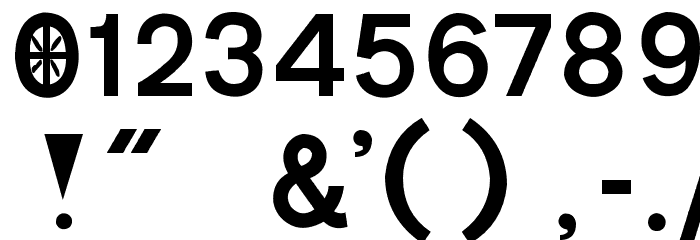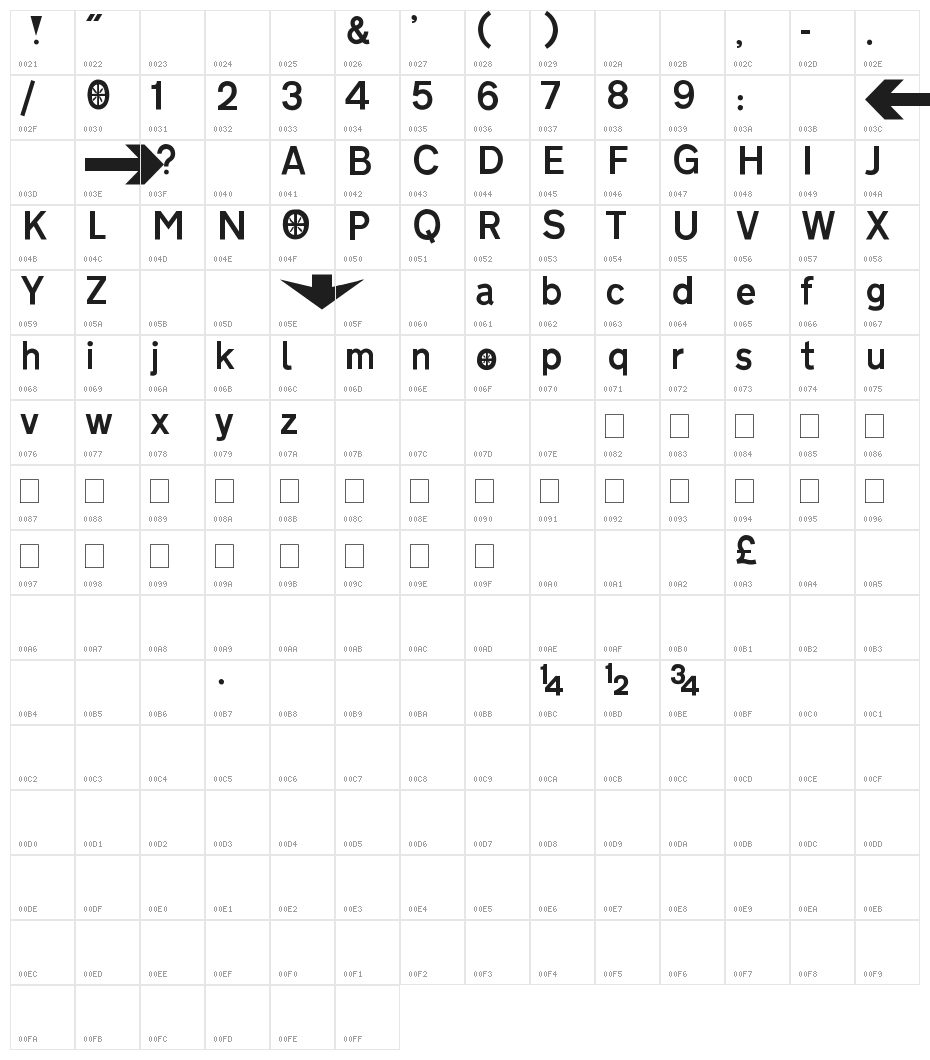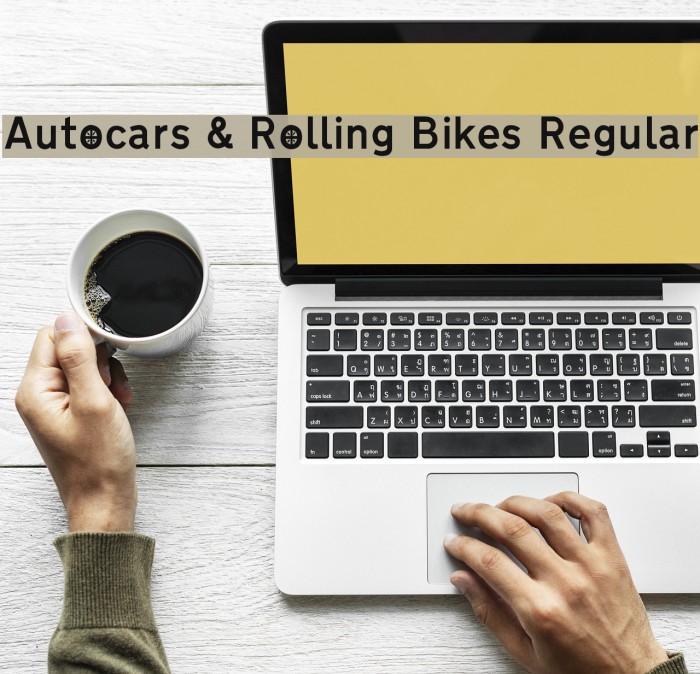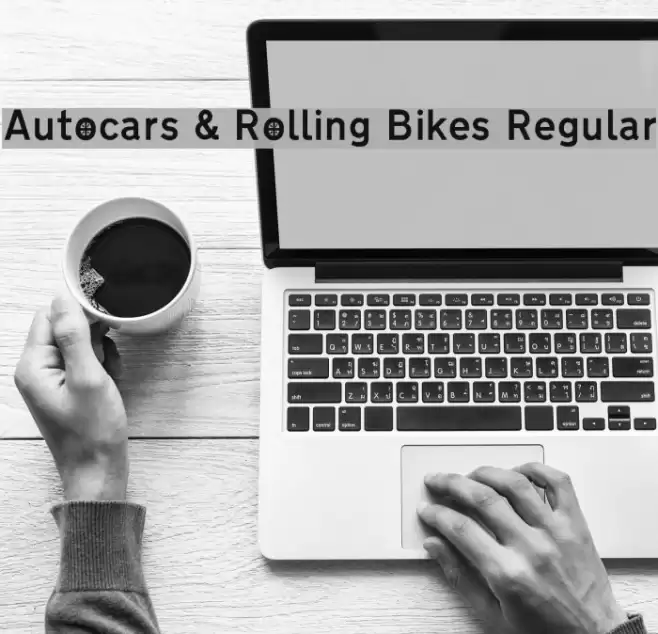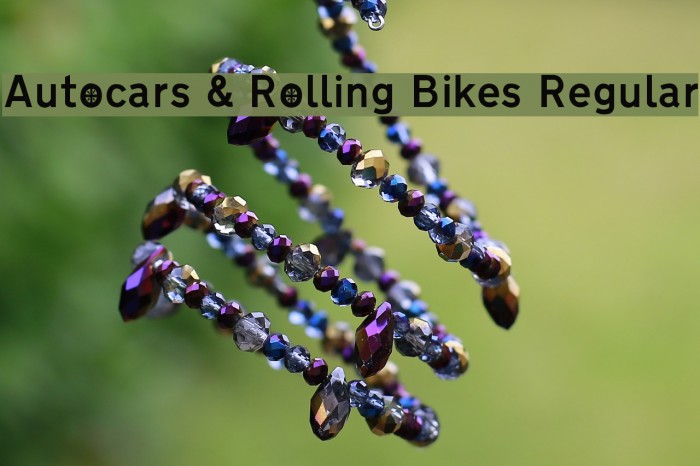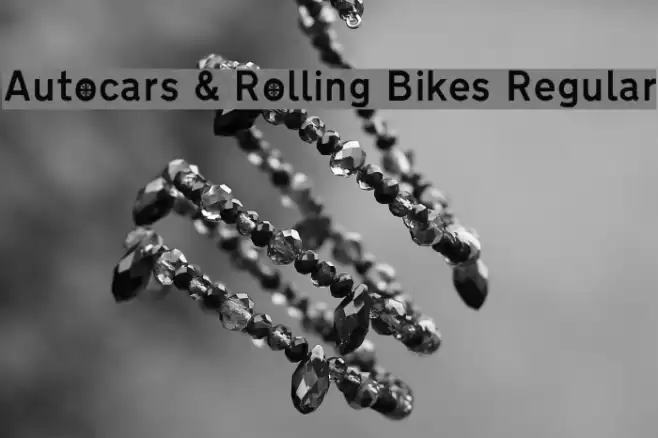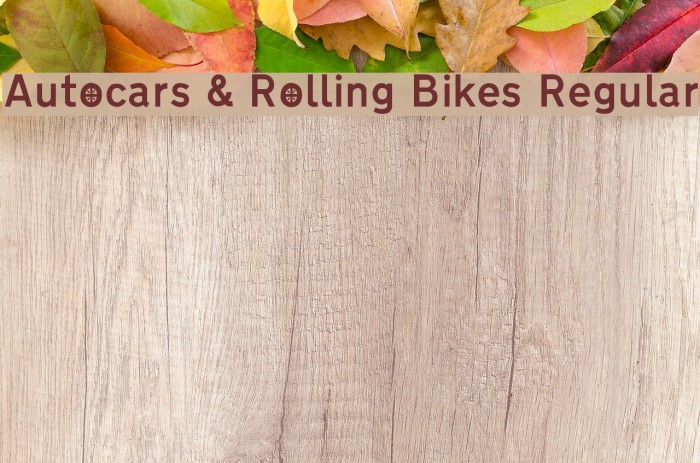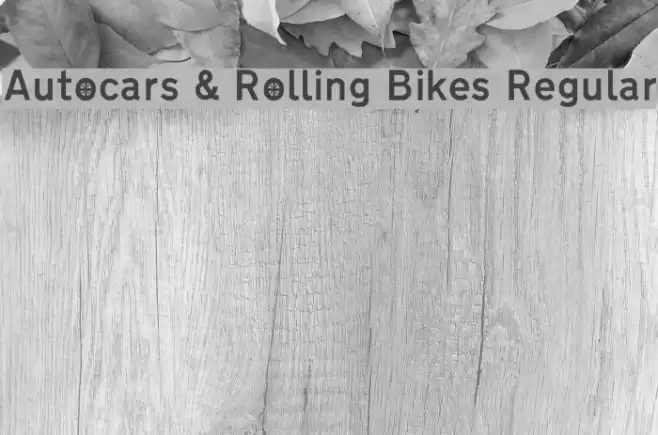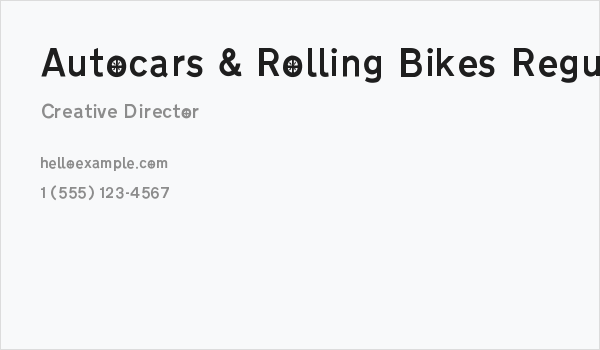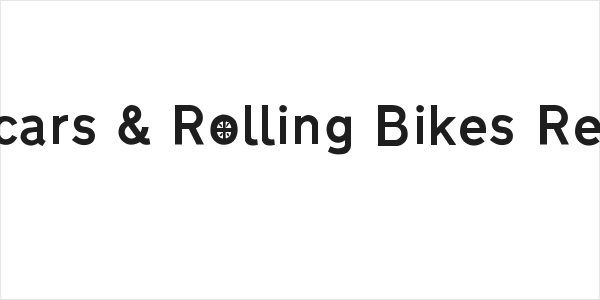
Autocars & Rolling Bikes Regular Font
Autocars & Rolling Bikes Regular Description
This font features a bold and modern design with clean lines and a geometric structure. The uppercase letters are uniform in height, providing a strong and cohesive appearance. The lowercase letters maintain a similar geometric style, with rounded edges that add a touch of softness to the overall look. The numerals are consistent with the letterforms, ensuring readability and balance. Special characters like the ampersand and punctuation marks are designed with the same attention to detail, making this font versatile for various applications. The unique design of certain letters, such as the 'O' with a cross-like pattern, adds a distinctive character to the font.